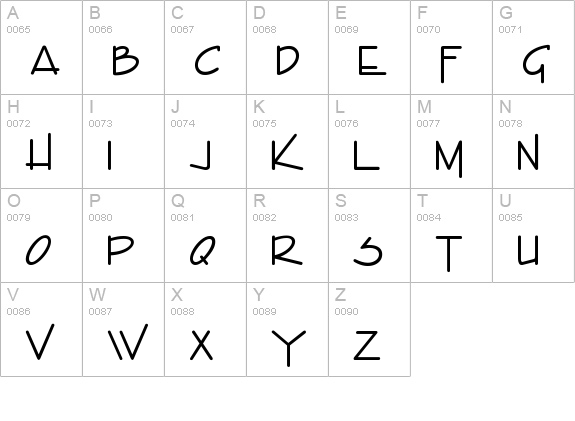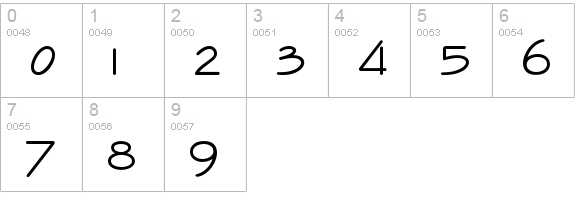
Pinzon Font Details
Introducing Pinzon, a stunningly elegant font that effortlessly combines classic sophistication with modern simplicity. With its clean lines and graceful curves, Pinzon exudes an air of timeless beauty, making it the perfect choice for a wide range of design projects. Pinzon's versatility knows no bounds, as it complements both formal and informal contexts, whether it be for branding, invitations, logos, or editorial designs. Its carefully crafted letterforms exude a sense of refinement, while its subtle flourishes add a touch of playfulness. What sets Pinzon apart is not only its exceptional aesthetic appeal but also its accessibility. This extraordinary font is available for free to all design enthusiasts, thanks to FontsMarket.com. A click away from transforming your creative visions into reality, FontsMarket.com offers a hassle-free and seamless download experience, ensuring that Pinzon becomes an essential addition to your font library. With its extensive character set, including a variety of alternate glyphs and ligatures, Pinzon enables you to experiment and add a unique touch to your designs. Its smooth and legible letterforms guarantee readability, even at small sizes, ensuring that your message is conveyed effortlessly to your audience. Pinzon is a true testament to the power of beautifully crafted typography. It captures attention, evokes emotions, and elevates your designs to new heights. Discover the endless possibilities that Pinzon offers and unleash your creativity today, with the freedom to download this remarkable font at FontsMarket.com.